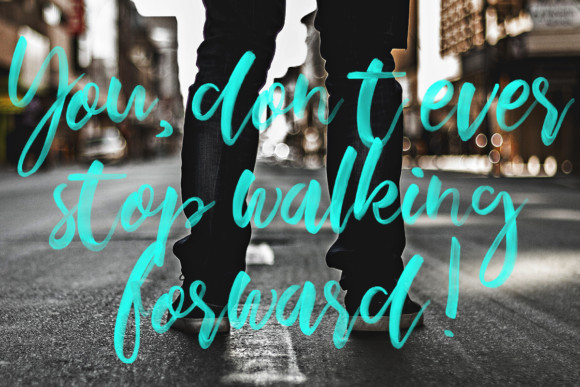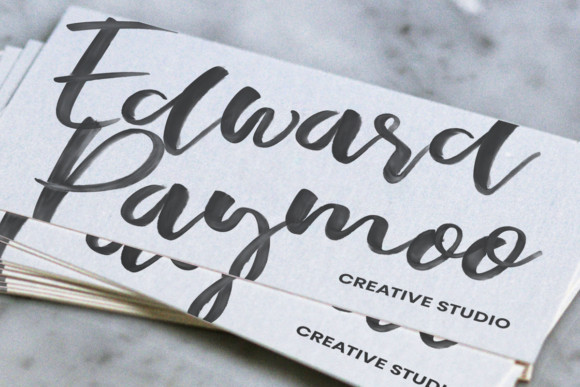
Troothusan Brush Font
Troothusan Brush SVG
Troothusan Font – This is a modern brush svg typeface. If you are looking for a brush style suited to your design then it’s here. A perfect addition to the professional designers font. Troothusan Brush Font designed and shared by rimbun bambu. Troothusan is a modern and striking display font with a bold feel. Use it to add a level of authenticity to any design project. This font is ​perfect for making your set of invitations, Brand, blog posts, DIY projects, greeting cards, labels, quotes, posters, wall art, branding, packaging, websites, photo & photography overlays, signs, window art, scrapbooking, tags and so much more!